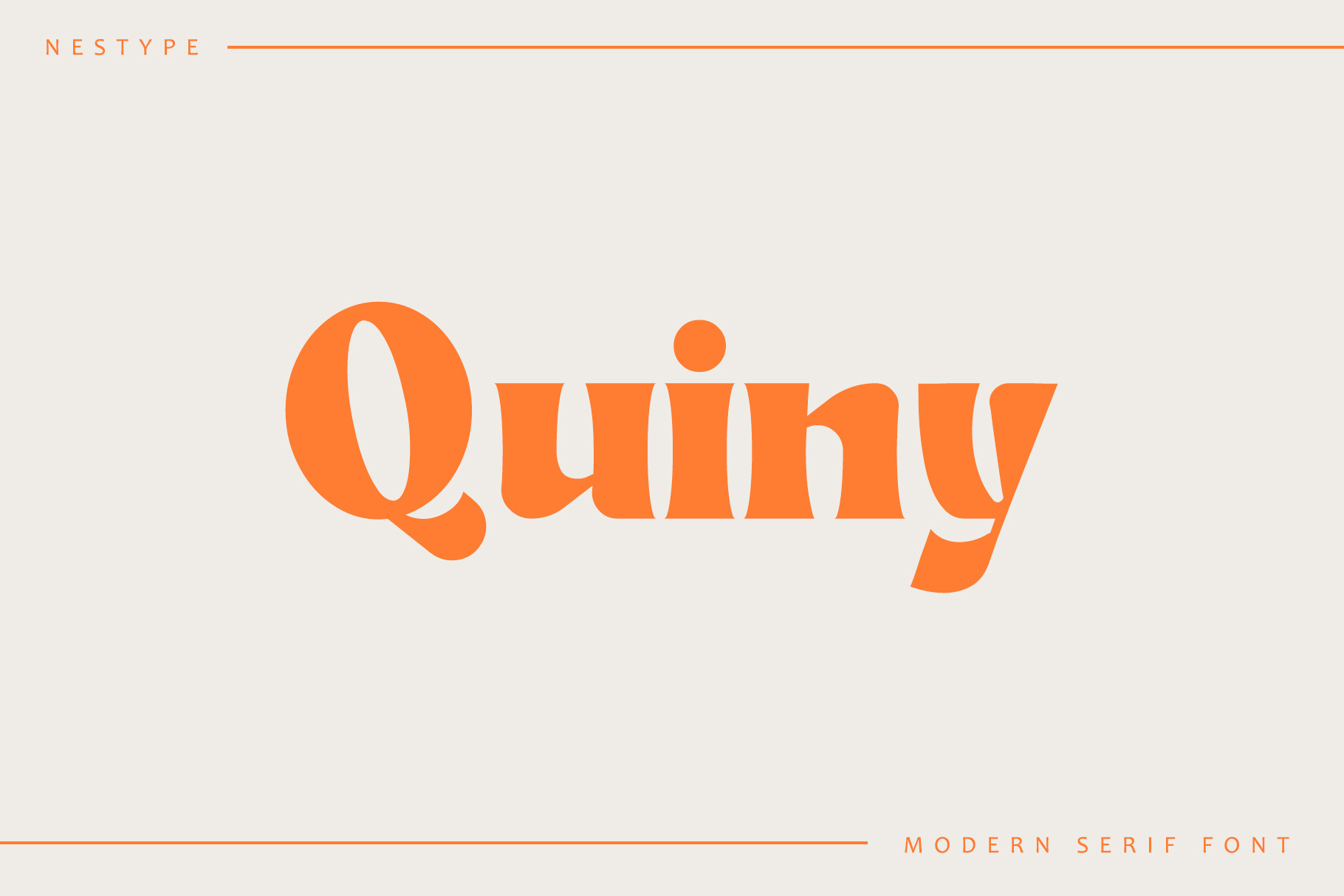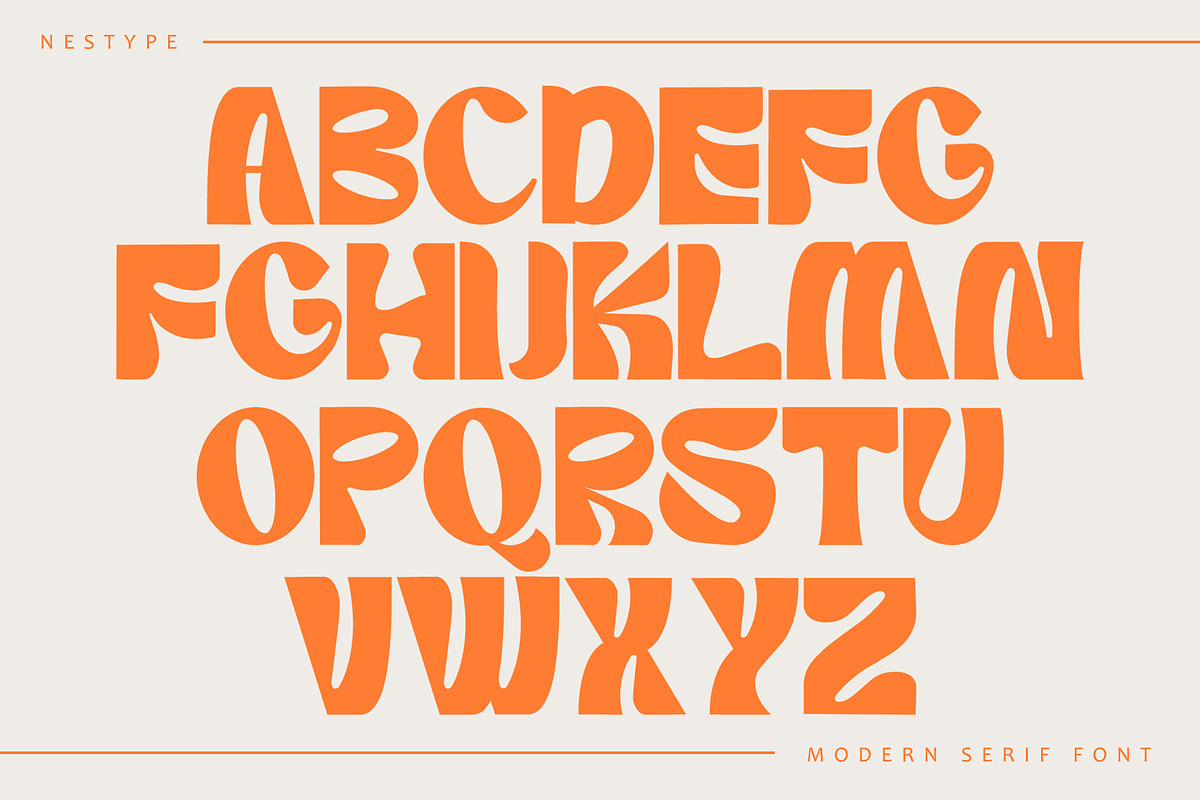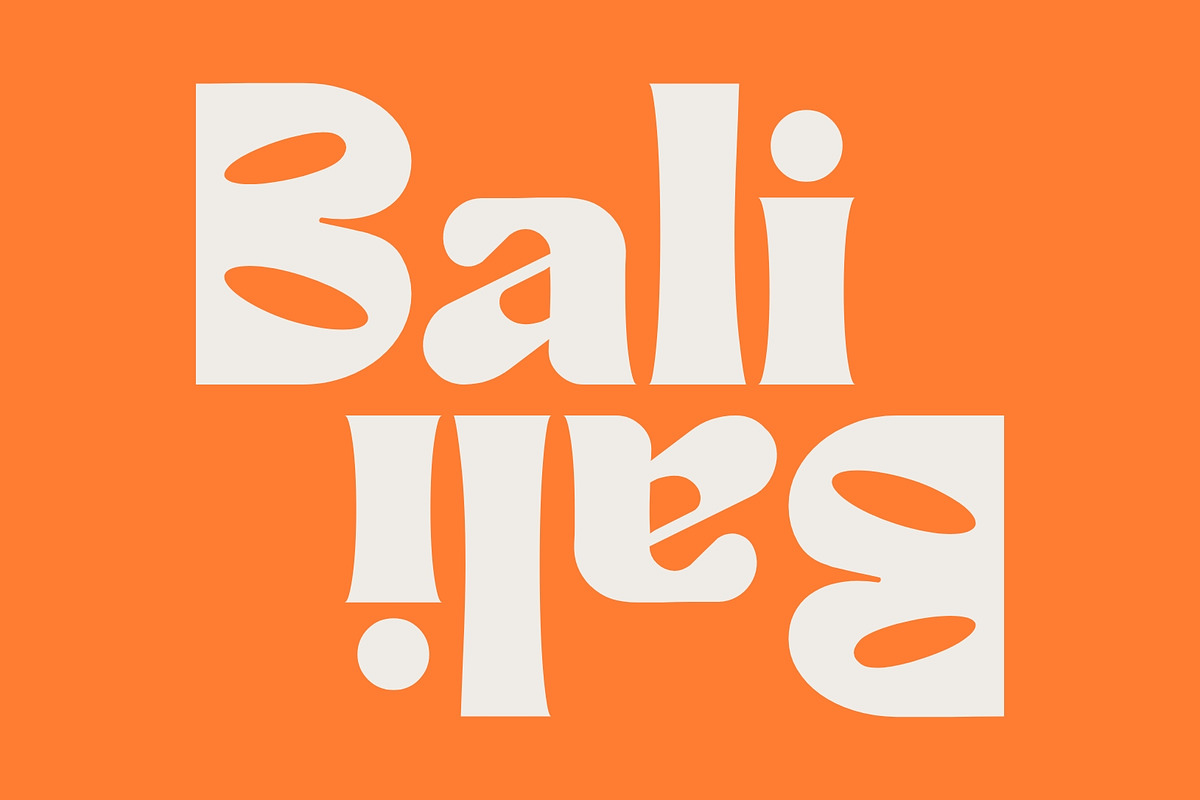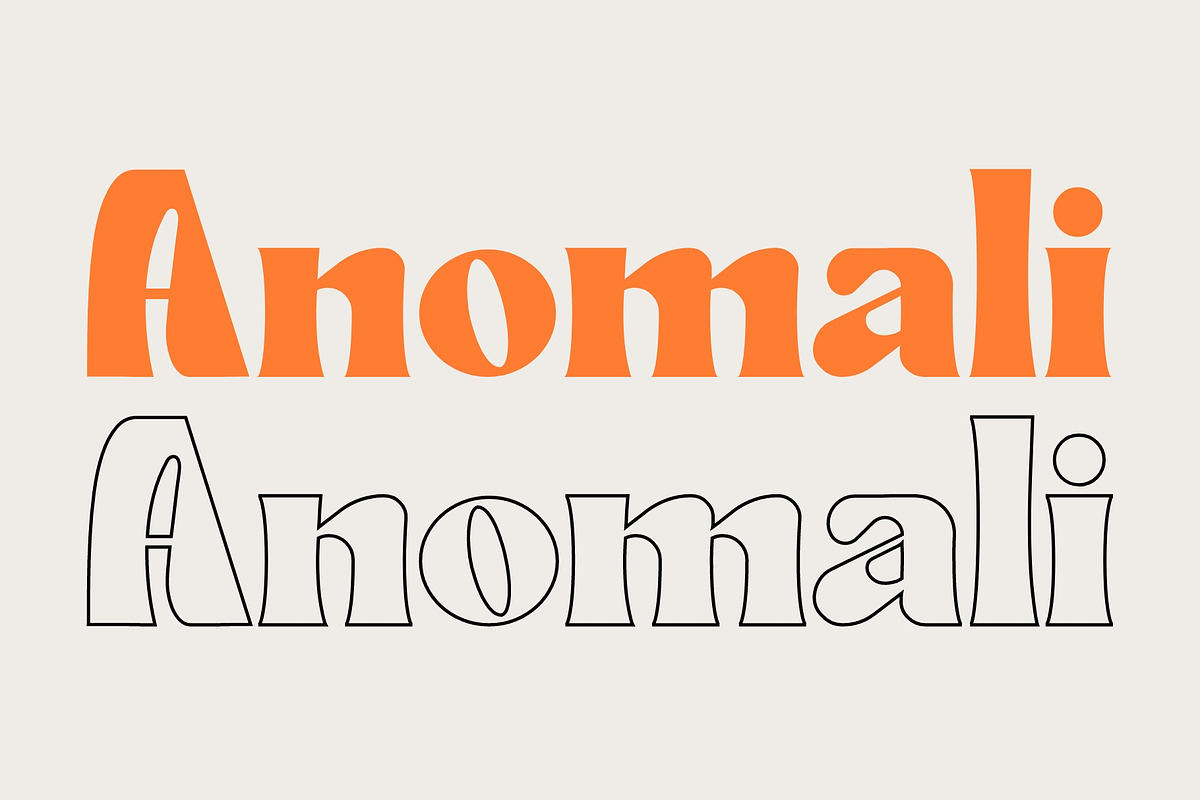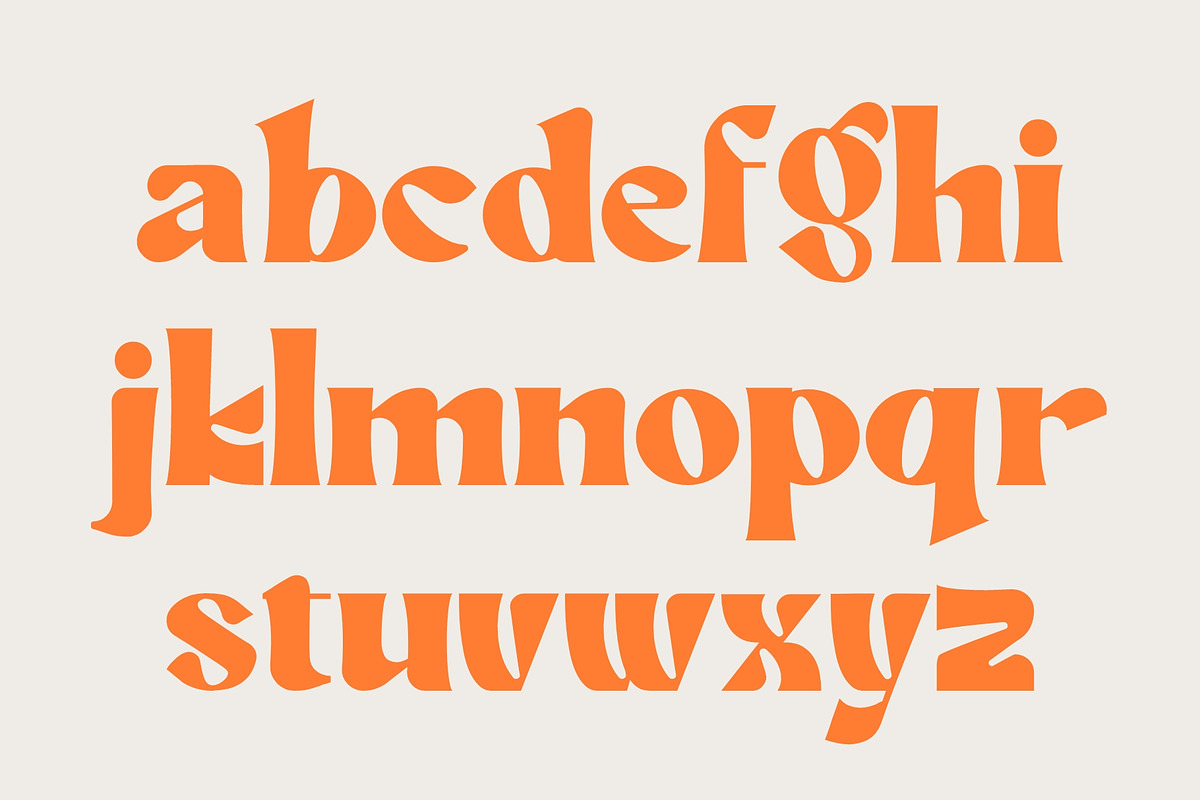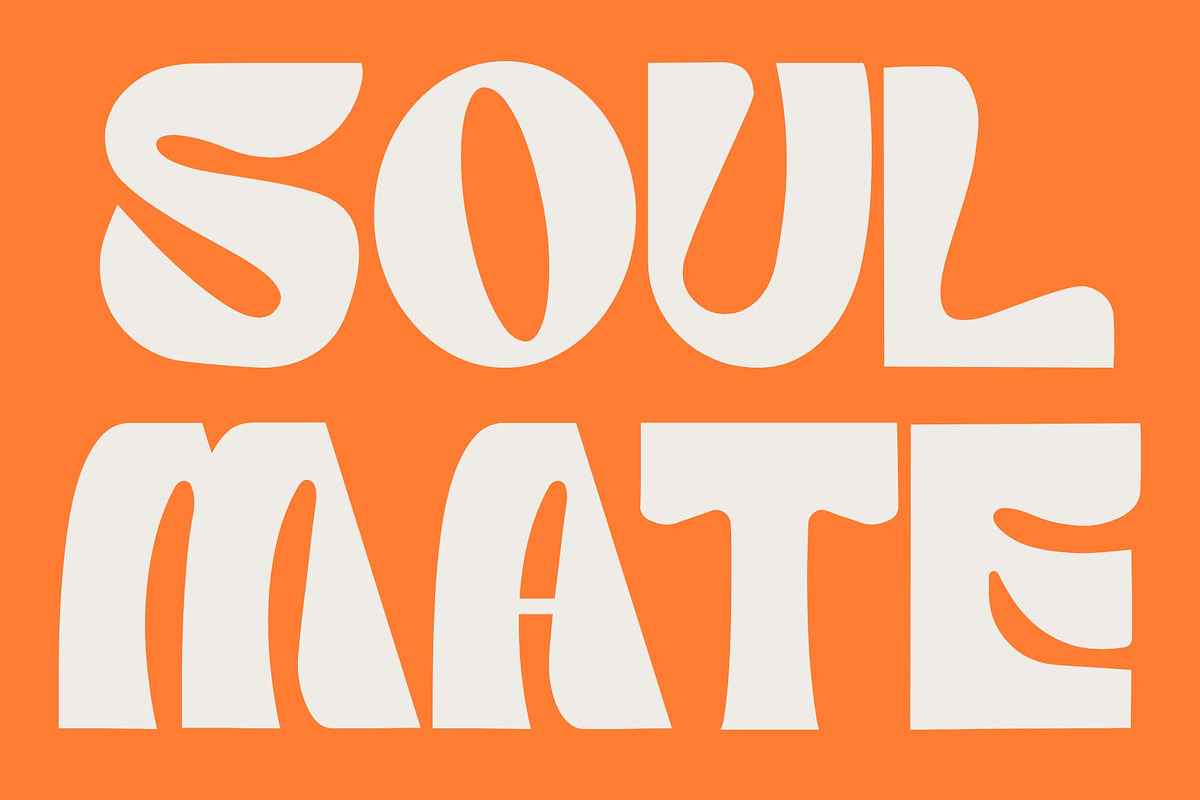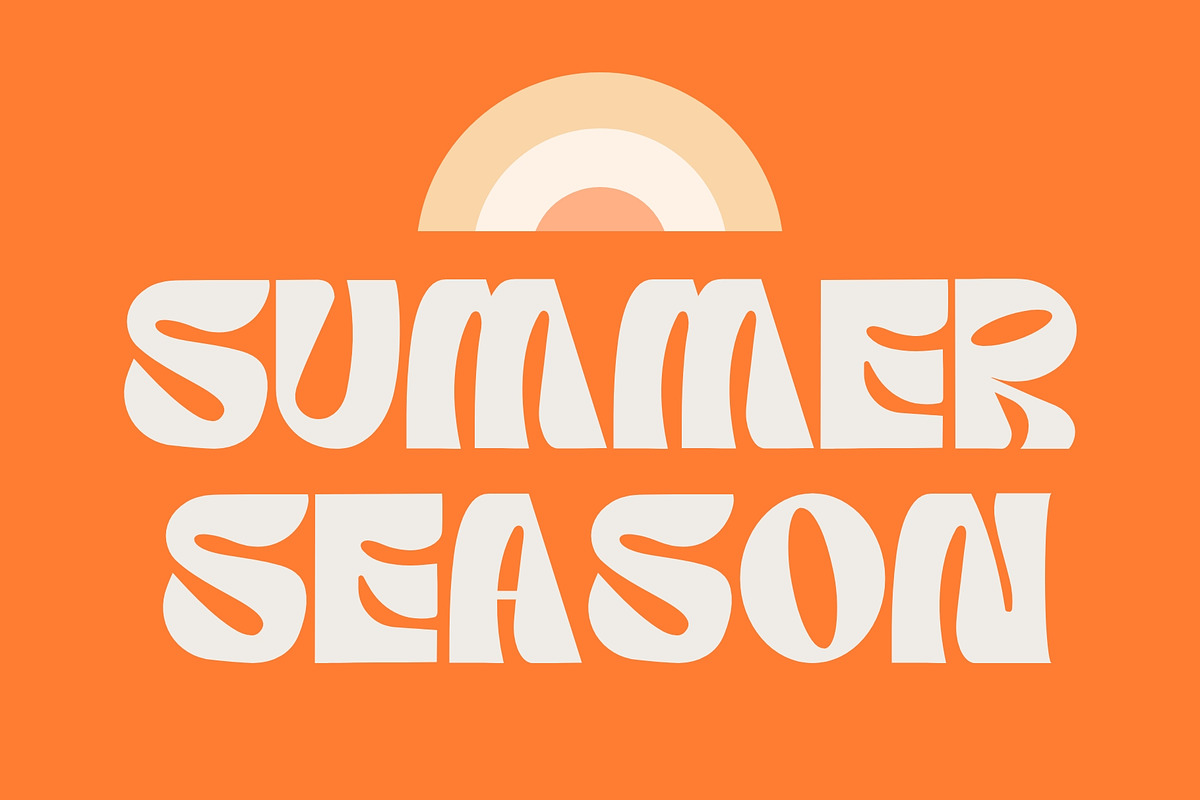
Quiny Groovy Font
Quiny is built with bold and curvy characters, Perfect if you need fun for your projects. This font is great for casual, fun events, vacation, beach, summer,